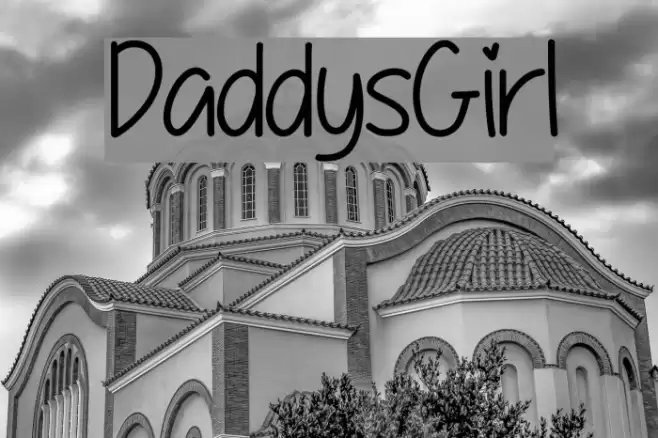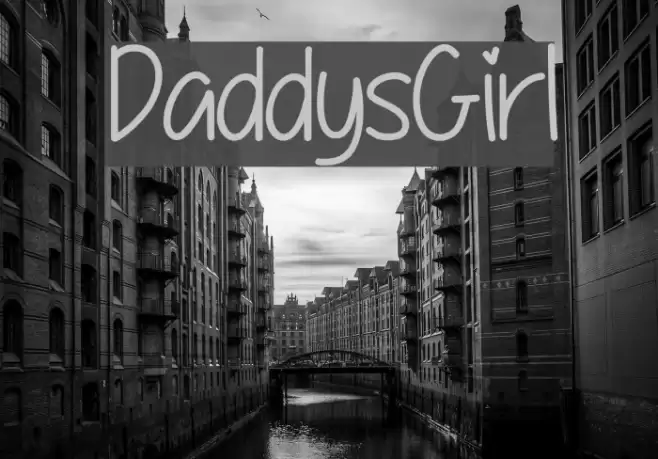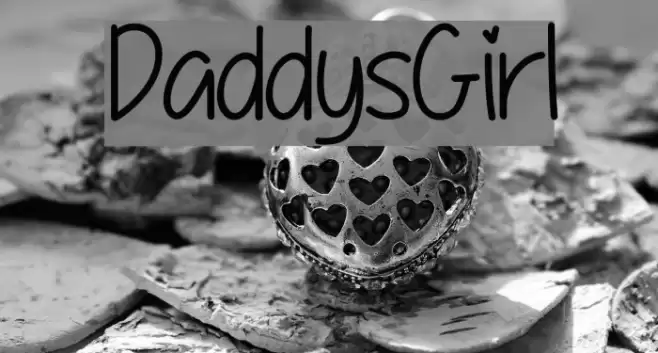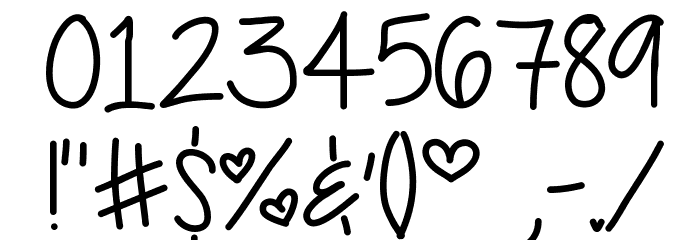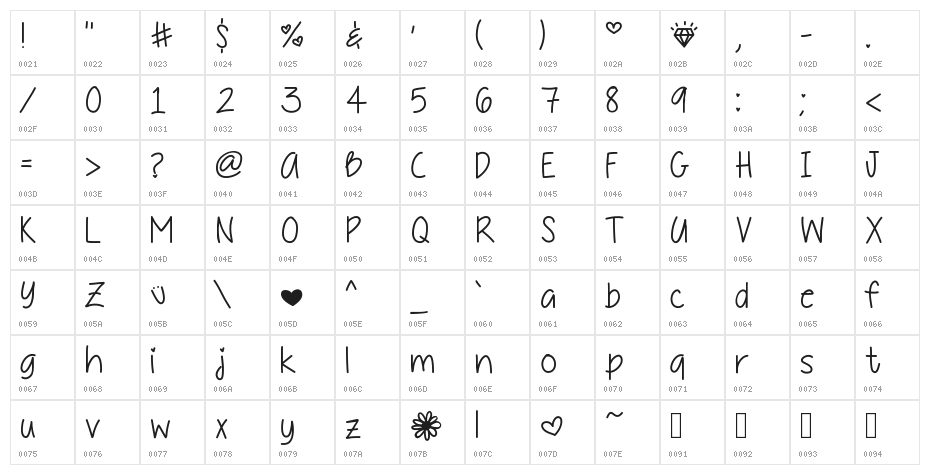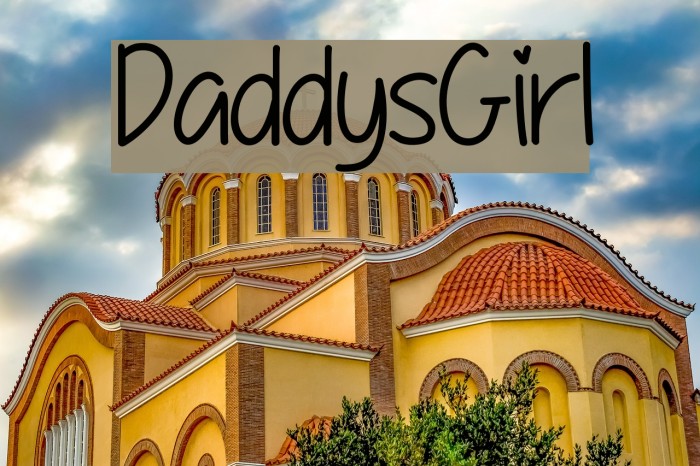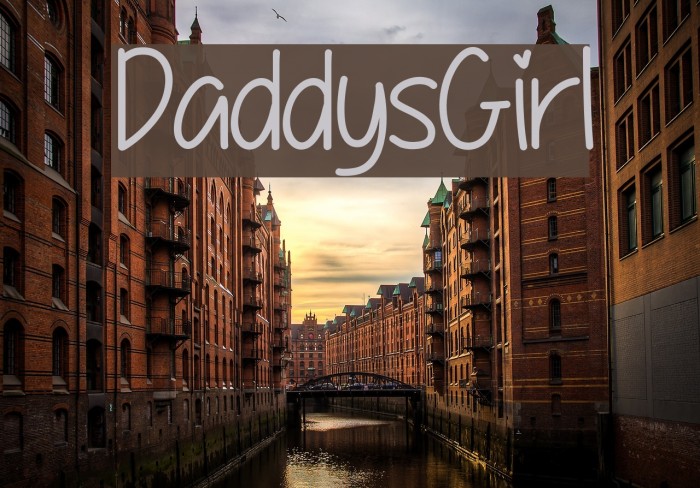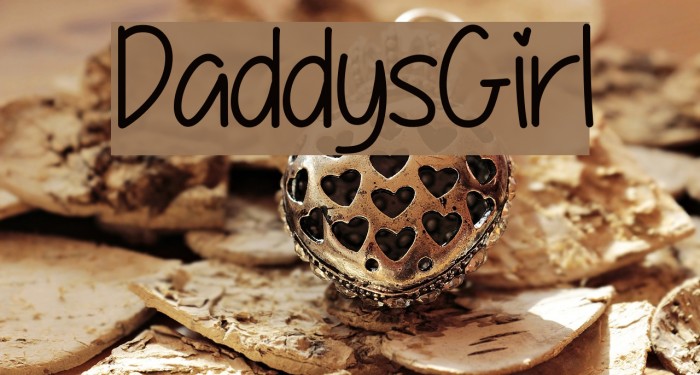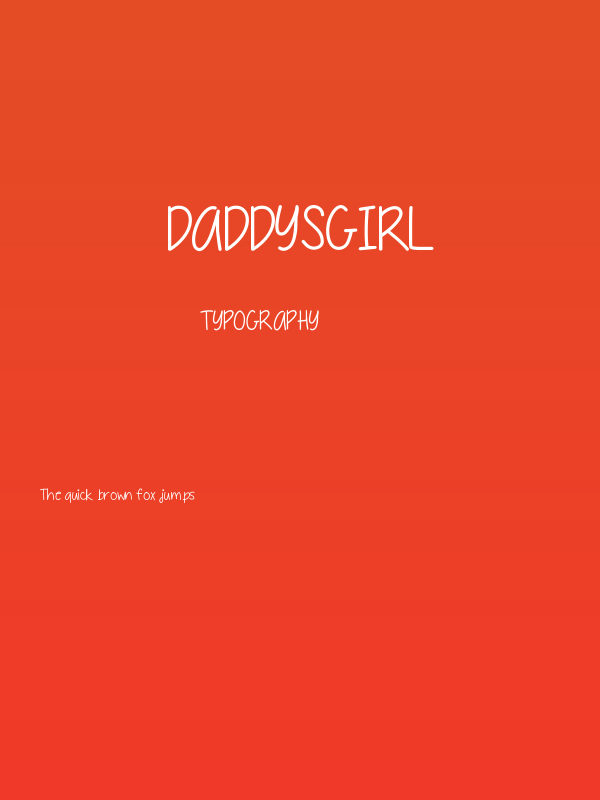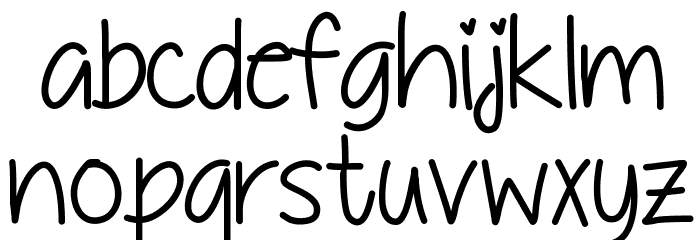
DaddysGirl Font
DaddysGirl Description
This playful and whimsical font features a handwritten style with a casual, friendly appearance. The letters are rounded and slightly irregular, giving it a personal touch that feels approachable and warm. The uppercase and lowercase letters maintain a consistent style, with a few playful embellishments, such as hearts on the lowercase 'i' and 'j'. The numerals are clear and easy to read, matching the overall style of the alphabet. Special characters are included, adding versatility for various uses. This font is perfect for projects that require a fun and informal vibe.
A playful, handwritten font with a casual and friendly style from Uncategorized fonts.
- Proposed Projects: Ideal for greeting cards, children's books, playful branding, and social media graphics.
- Overall Style: Playful
- Use Case: Headlines, Informal text, Creative projects